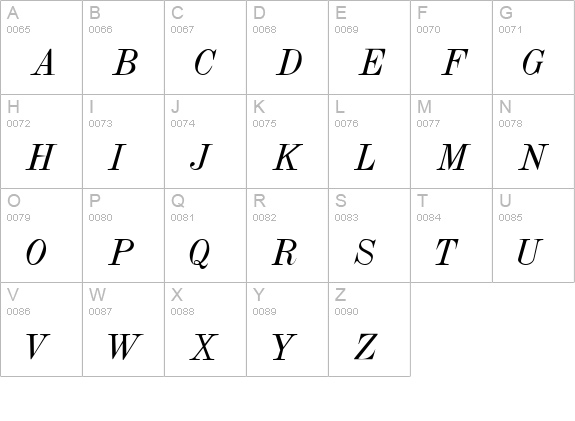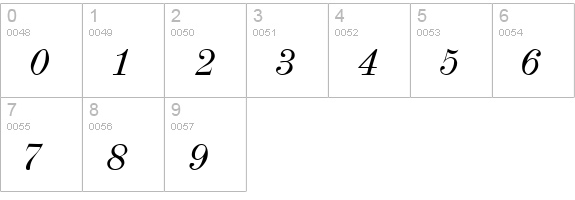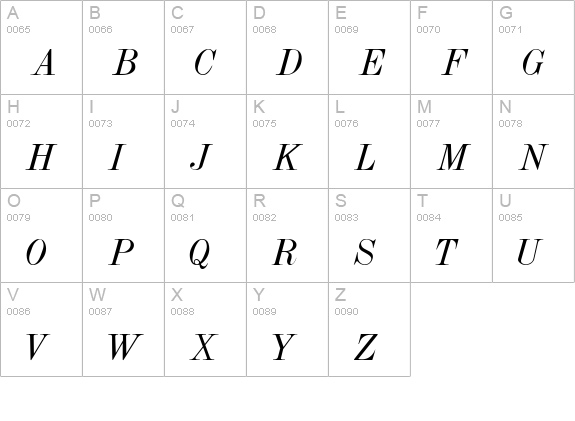
DubielItalic Italic Font Details
DubielItalic Italic is a distinctive, italic variant in the DubielItalic typeface family \xE2\x80\x94 well suited to design and typography projects.
The DubielItalic Italic font exudes elegance and sophistication with its sleek, slanted design. Its smooth curves and graceful strokes make it perfect for adding a touch of class to any project. Whether you're designing invitations, creating a logo, or crafting a stylish website, this font is sure to make a statement. What's even better is that DubielItalic Italic font is completely free to download at FontsMarket.com. With just a few clicks, you can have access to this beautiful font and elevate your designs to the next level. Don't miss out on the opportunity to enhance your projects with this stunning typeface that is both stylish and versatile. Download DubielItalic Italic font today and bring your creative vision to life!